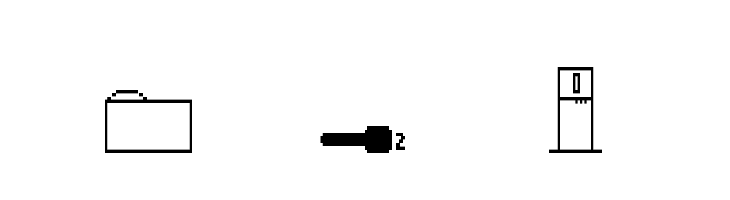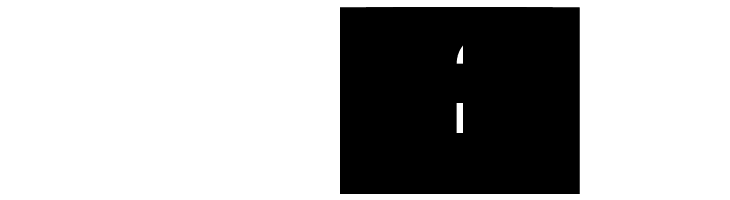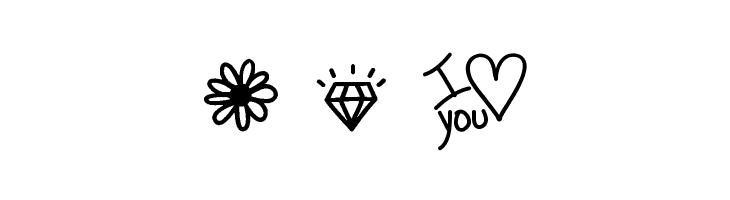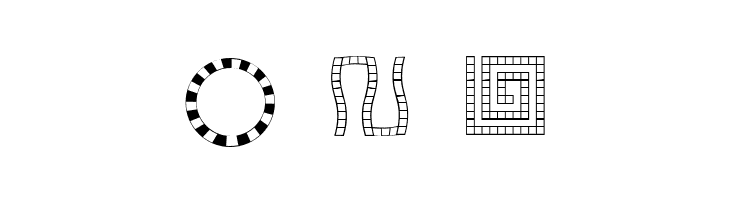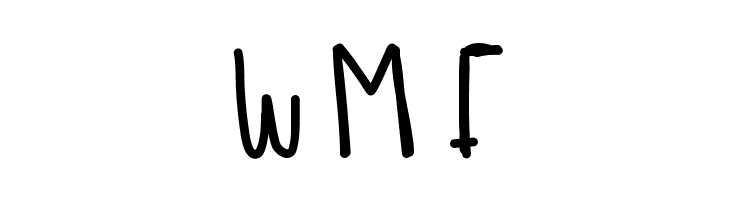
A modular, geometric symbol font with a pixel-art style.
Pixel art icon font with retro computer and office symbols.
A playful and whimsical collection of hand-drawn dingbats featuring various symbols.
A playful and decorative icon set of alien heads and UFO symbols.
A bold, iconic font featuring symbols of popular social media and tech brands.
A decorative collection of floral and geometric symbols for artistic embellishments.
A decorative, game-themed font with playful board game symbols and shapes.
A playful, hand-drawn font with bold, rounded characters and whimsical symbols.